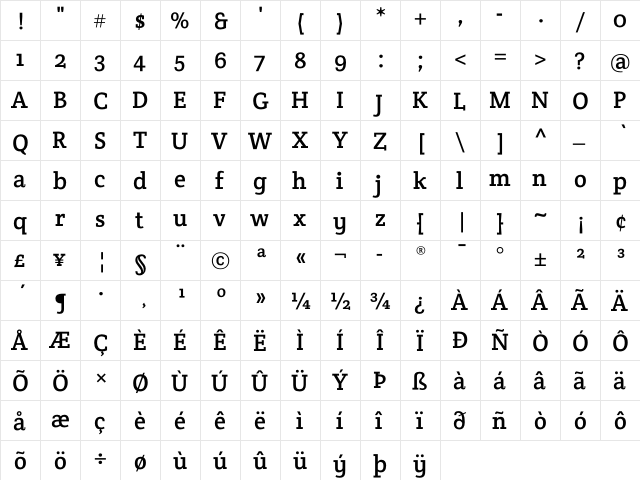
Crete Thick
| Foundry | TypeTogether |
| Designer | Veronika Burian |
Design Context for Crete Typeface
Crete is a composed and adaptable typeface that performs quietly and consistently across a wide range of design contexts.
Pro Tip: Pair Crete with a font of contrasting weight or personality to build a more expressive typographic hierarchy.